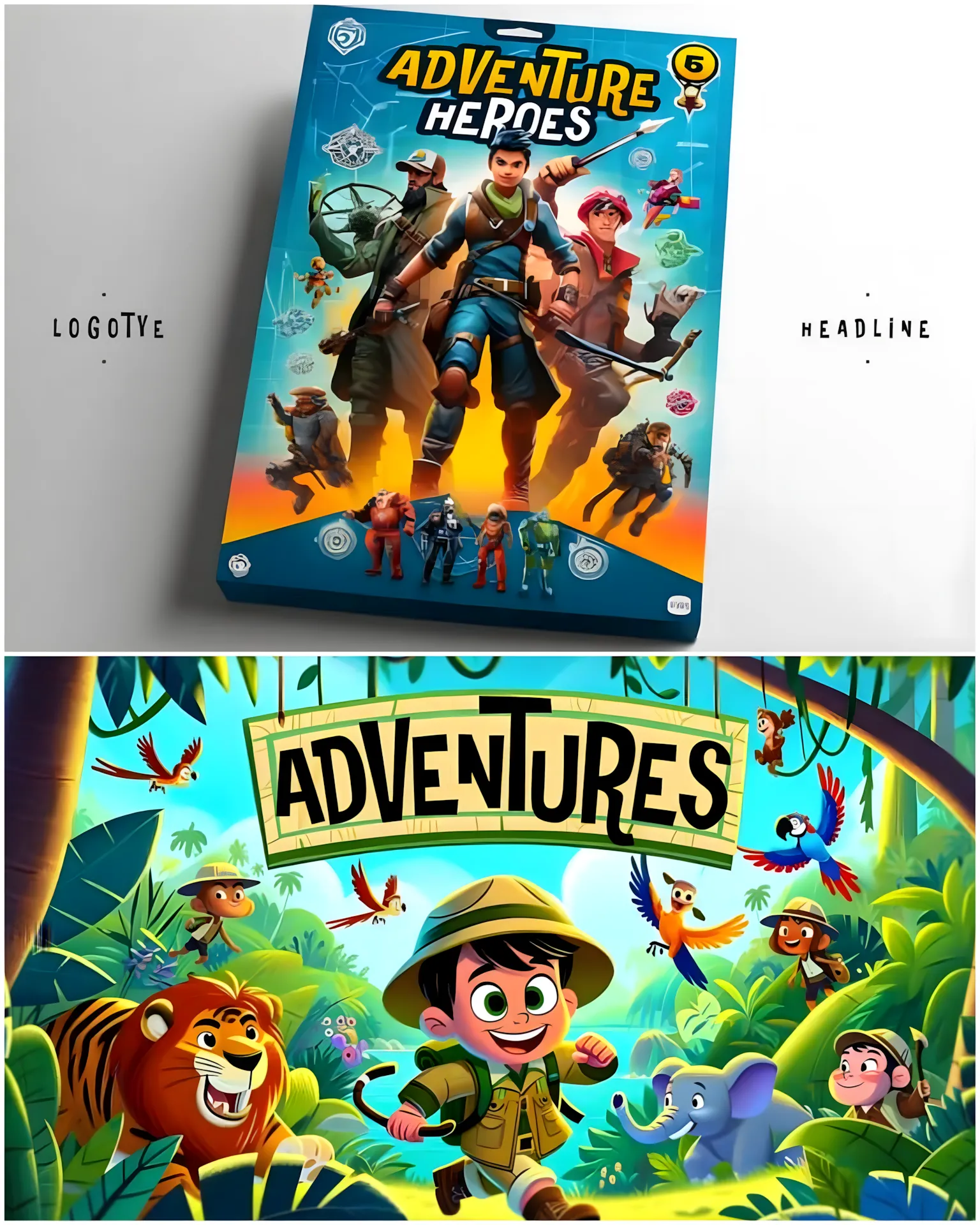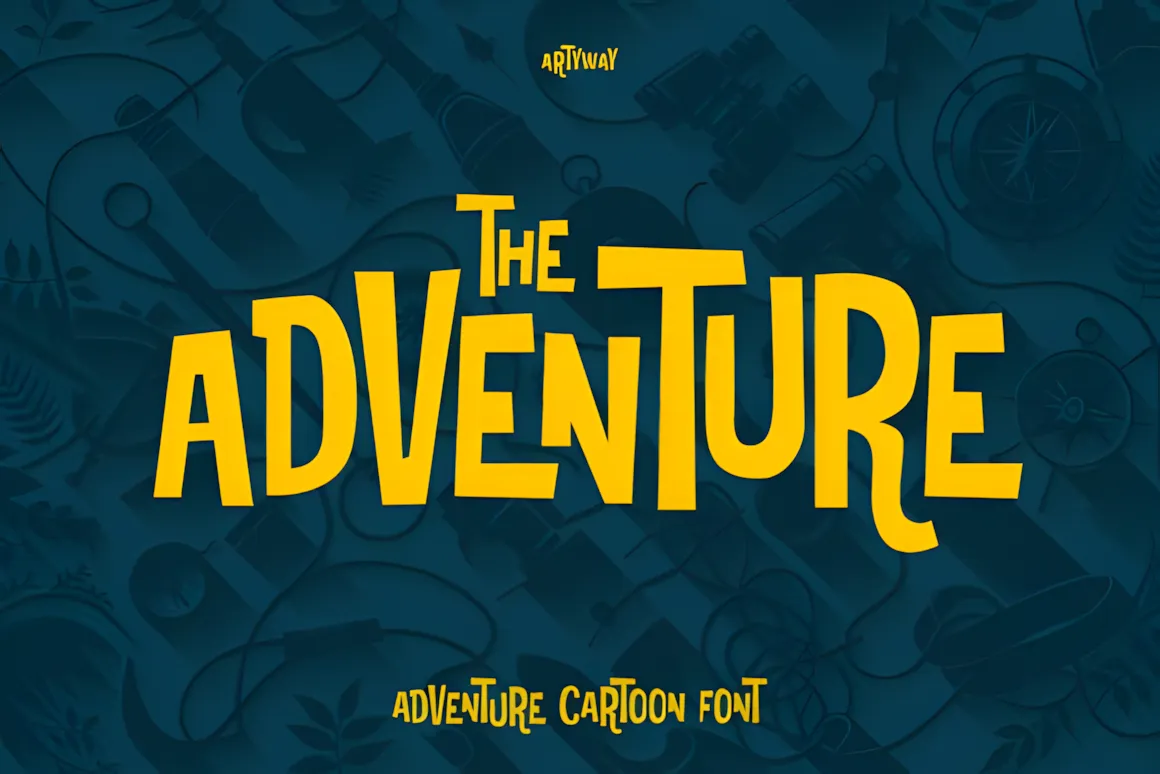
Adventure Cartoon” – The Perfect Typeface for Fun and Playful Designs
If you want to add some zip to your designs, this is the font for you. It’s bold, funny, and just right for anything that needs a bit of playfulness. Think kids' stuff, fun logos, or posters that pop. Each letter has its own vibe, so your words will for sure stand out.
It works in a bunch of languages and has all the special characters you might need, so it’s super handy.